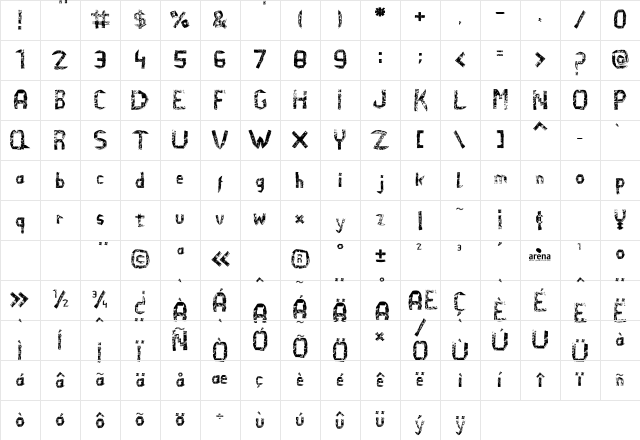
Complete El Efi de Arena glyph index. Displaying only characters natively supported by El Efi de Arena font.
El Efi de Arena is a composed and adaptable typeface that performs quietly and consistently across a wide range of design contexts.